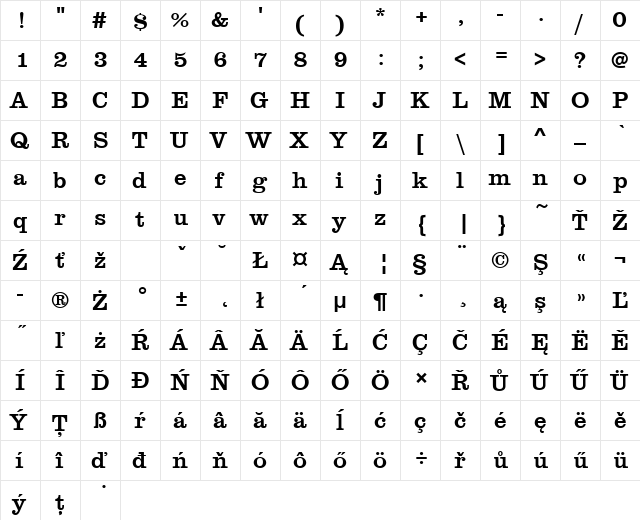
ClarendonTEEMed Regular Font Preview
ClarendonTEEMed Regular
ClarendonTEEMed Regular Font Details
Design Context for ClarendonTEEMed Typeface
ClarendonTEEMed features prominent, blocky serifs that give it a confident, grounded presence — equally at home in editorial settings and bold branding work.
Works well in editorial design, news publishing, impactful branding, and poster typography.
Pro Tip: Try ClarendonTEEMed set tight in headlines for a classic editorial feel. Its slab serifs create strong horizontal rhythm that anchors a page layout.